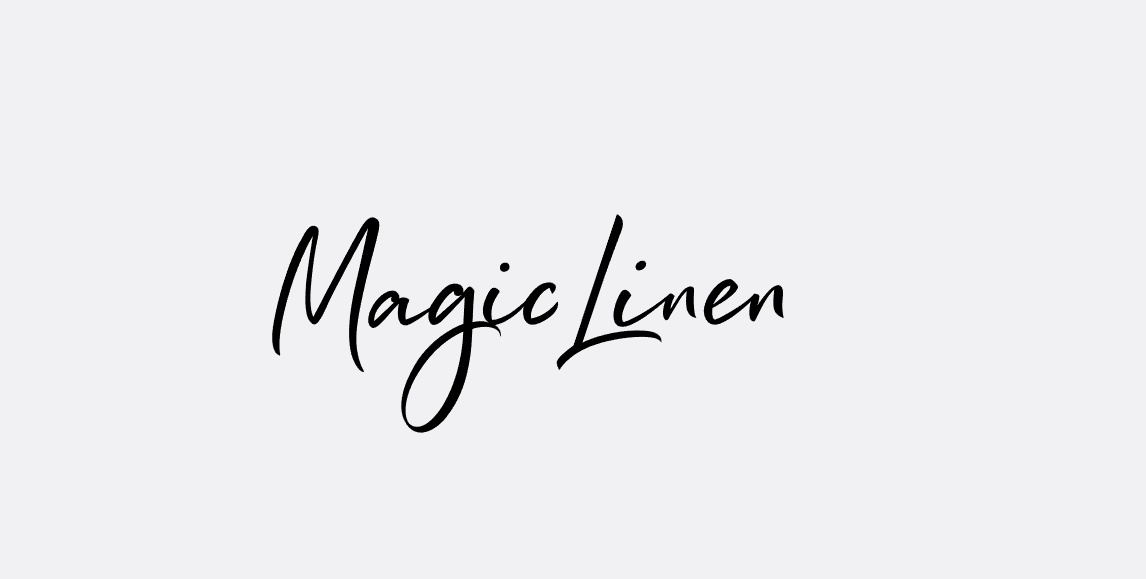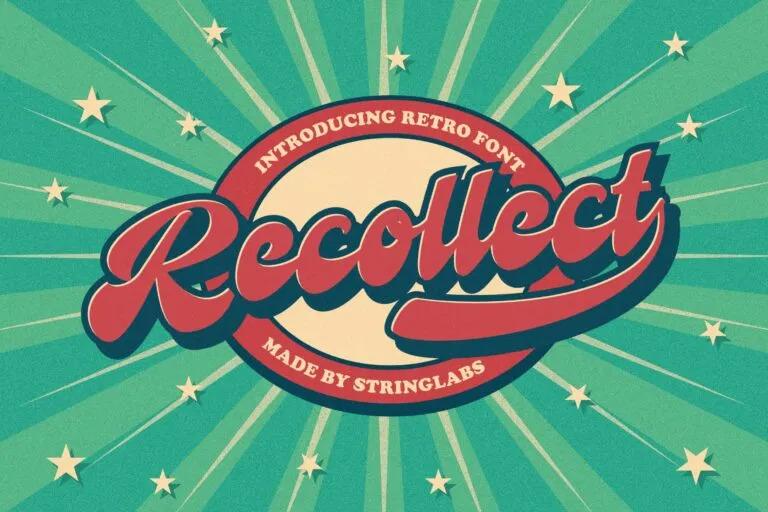
31+ Best Clothing Brand Fonts for Festive Project Designs
Clothing brand fonts have come a long way from simply layout designs to expressing a personal feeling. Like flaming letters that remind people of festive project ideas with their sleek curved lines that represent elegance, wit, and readability. From scarce style to peculiar handwriting, the 31 font below will truly dress up your eye-catching designs!
Top Clothing Brand Fonts to Embellish Your Designs
The most popular fonts for clothing lines for this year fall on a spectrum. Aside from the aesthetics, the following lists of fonts also offer both functionality and versatility at once. Instead of using the monotone typeface already, here are the 31 bombastic clothing fonts to add a little something extra to your wonderful artwork.
Ving Winston
Since it brings a delicate, Vings Winston is the best script typeface for the sweetest work.
Bung Virgi
Under the script’s signature typeface, Bung Virgi is a stylish compliment to portray soft exclusivity ideas.
Tindak Pundi
As one of the fonts for clothing brand, Tindak Pundi Signature font has a premium touch with a vibrating-curved style.
Recollect
Recollect is one of the best fonts for clothing brands with a simple professional retro look.
Mashiya
In case you prefer the monoline for luxury clothing, Mashiya will magic the customers’ attention.
Celline Fram
Fancy the dry-textured handbrush typeface? You can ignite elegance and casualness by using Celine Fram Script font.
Sans-Serif
Approved by MagicLinen themselves, Sans-serif is a stylish and elegant typeface that goes well with the natural texture and softness of linen fabric.
Russel Dexter
Whilst the clothing fonts pop the retro, Russel Dexter stands timeless with a bold-oblique style.
The Banten
With a classic feel, Banten appeals as one of the high-end clothing brand fonts in a youthful sense.
Rineghan
If you’re running a fun branding, Rineghan adds the extra dose of your personality artwork.
Sang Ratu
Using Sang Ratu Vintage Script Font with its smooth lines and swashes for readability will match your design.
The Saily
Incredibly versatile, The Saily typeface will give your clothing brand logo a quirky attention-grabbing look. This one is surely one of the exquisite and best fonts for clothing brands.
Restu Bundah
With Restu Bundah’s stamp texture and groovy style, you can block a timeless touch to your clothing brand designs.
Azingdar
The bold script Azingdar drop trendy flair with solid ligature, natural swashes, and smooth stylistic alternates.
Osake
Osake typeface exudes an exciting outdoor and natural vibe by adding a chilly Japanese touch.
Montages
If you’re looking for a sporty-classic-retro style, Montages is a great option for your clothing design.
Vezthisory
Consider Vezthisory with its minimalist alternate yet energetic aesthetic vibe as swanky clothing fonts for your apparel brand.
Baster Monky
Baster Monky incorporates its clean lines, clear stroke, and simple ligature to create a lasting impression. Great choice for children or female clothing brands!
Charlotte
Introducing Charlotte, the truly delightfully delicate typeface. While the strokes are thin, it has good readability.
Esportiva
Esportiva presents you with a timeless sporty modern typeface. Not monotonous, it stylishly releases better legibility.
Playkidos
As the name suggests, Playkidos targets kiddos by releasing a cheerful thick-thin combination of strokes and eccentric letter shapes.
Roshinta
Roshinta certainly will decorate any design with an adorable retro vibe. Put it on your t-shirts or sports clothing lines!
Bagrek Display
As one of the clothing brand fonts on the list, Bagrek Display embodies a sweet playful essence with excellent modernity flare.
Elegante
Pick the Elegante typeface to sensate the thoughtful look with its hollow font style! It has traditional opulence as your neon box font as well!
Angler
Like a fairy tale, the Angler typeface comes with thin sleek, and beautiful arches. You can use this for exclusive clothing brands.
The Qlickers
What font does Supreme Clothing use? Beyond its entirety, The Qlickers has the features of a modest sophisticated touch.
Awaken
Romanticize your design project using Awaken’s fancy ligature and alternate. They are the best match ever to represent your formal clothing line!
Serizawa
If you want your clothing brand fonts to stand out in a humble way, apply Serizawa’s simplicity and authenticity!
Queental
Queental is a signature typeface that brings both professional and personal touch to contemporary clothing logos.